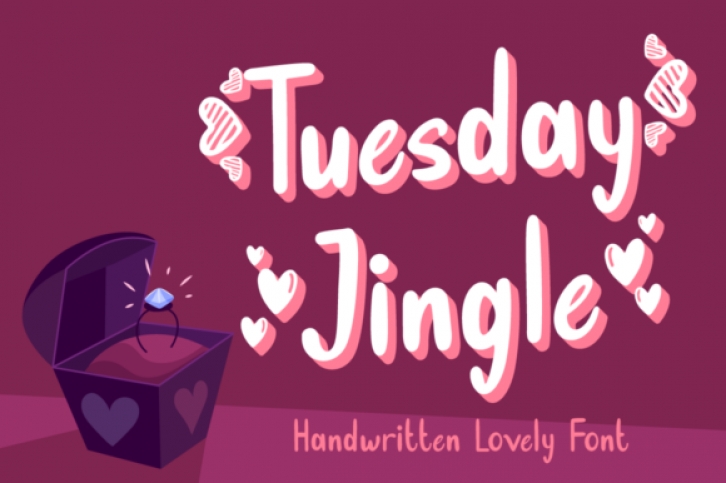
Tuesday Jingle is an exquisite handwritten font, featuring little hearts as ornaments. This original look will appeal to a wide range of crafty ideas, from letterheads and titles, to stationery.